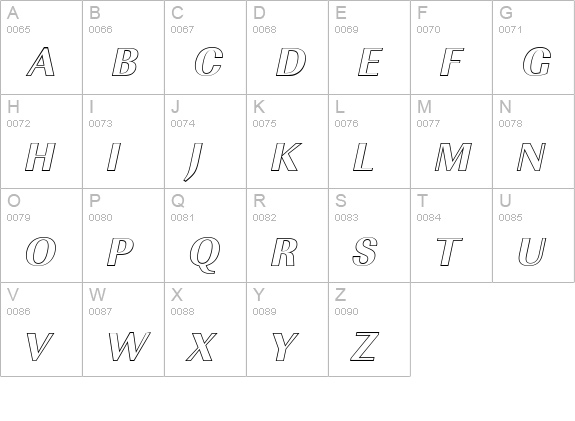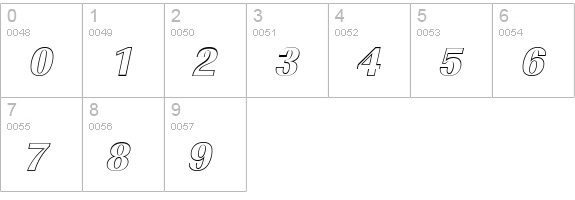
ImperialOu-Xbold-Italic is a distinctive, italic variant in the ImperialOu typeface family \xE2\x80\x94 well suited to design and typography projects.
ImperialOu-Xbold-Italic is a sophisticated and elegant font that exudes a sense of grandeur and refinement. With its bold and italic styling, this typeface adds a touch of luxury and class to any design project. The sleek lines and intricate detailing of ImperialOu-Xbold-Italic make it perfect for creating eye-catching headlines, logos, and other design elements that demand attention. What sets ImperialOu-Xbold-Italic apart is not just its stunning aesthetics, but also its versatility. Whether used for print or digital applications, this font shines in a variety of contexts, from editorial layouts to branding materials. Its timeless appeal ensures that it will remain a classic choice for designers looking to elevate their work. The best part? ImperialOu-Xbold-Italic is available for free download at FontsMarket.com. Now you can access this premium font without any cost, making it a valuable addition to your font library. Don't miss out on the opportunity to enhance your designs with the timeless elegance of ImperialOu-Xbold-Italic. Download it today and elevate your creative projects to new heights.